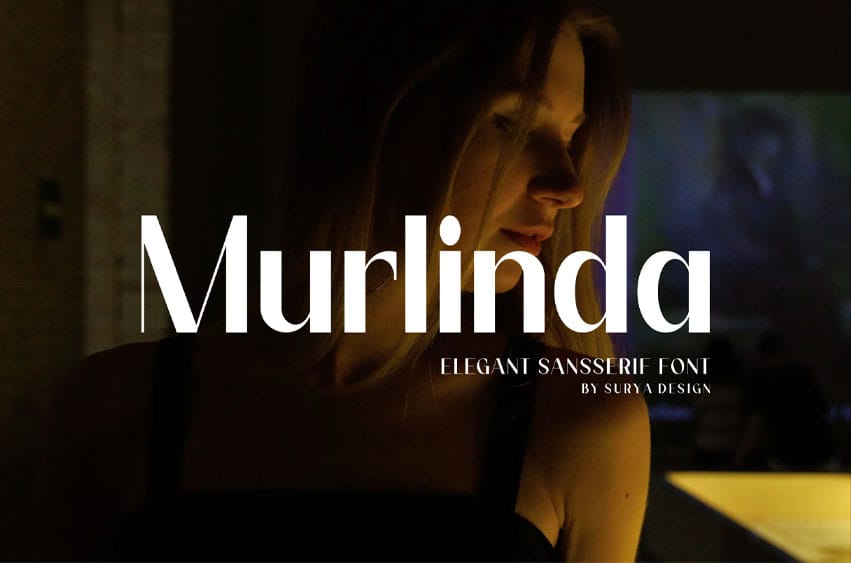
Murlinda Font Modern Font is a bold and authentic display font. The font is suitable for any branding project like logo, printing, esport, and many more.